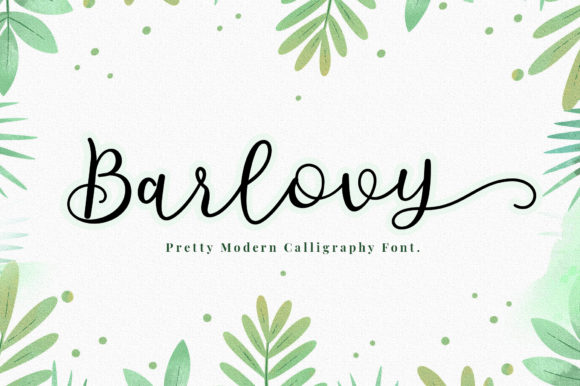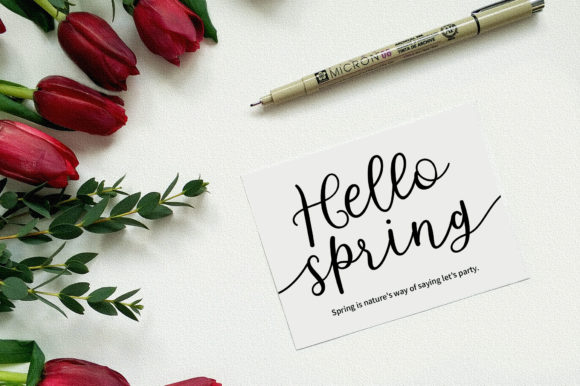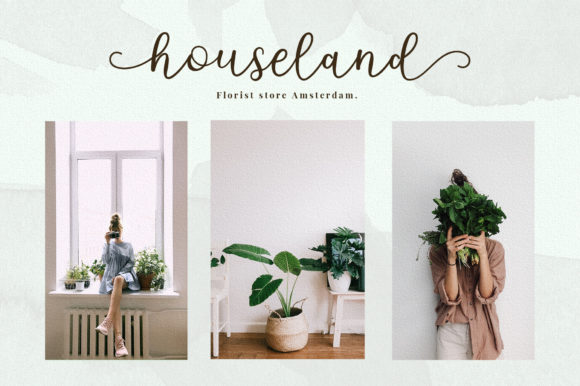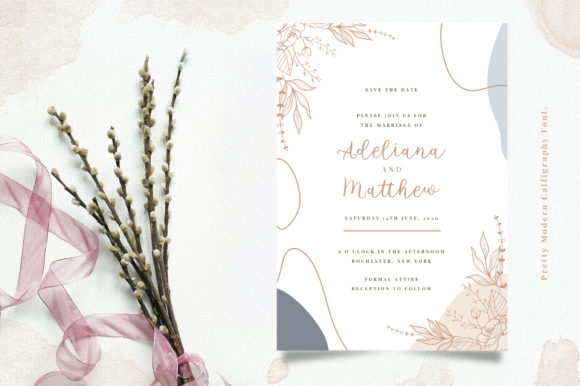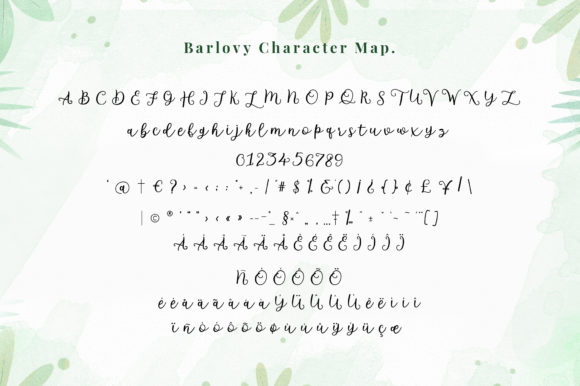
Barlovy Font
About Barlovy Font
Barlovy is a flowing and elegant handwritten font. It looks stunning on wedding invitations, thank you cards, quotes, greeting cards, logos, business cards and every other design which needs a handwritten touch.